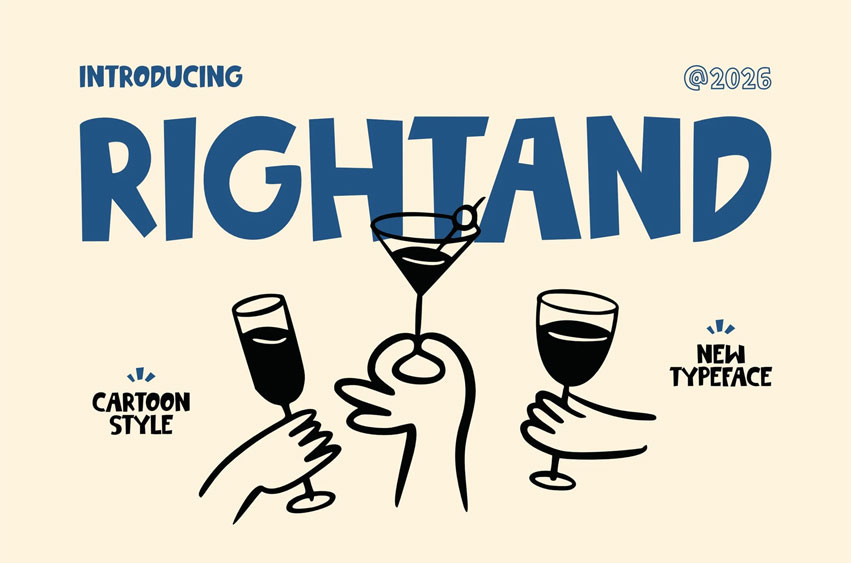
Rightand Font
Rightand Font is a bold all-caps hand-drawn display typeface designed for expressive branding and statement headlines, featuring chunky proportions, rounded terminals, and confident stroke contrast. Its strong uppercase structure delivers instant readability and visual authority, while the playful, handcrafted feel keeps designs warm and approachable. The vibe is bold, friendly, and energetic—perfect for creative brands that want to stand out without feeling rigid.
RIGHTAND is built for designers who need their message to hit fast and stay memorable. It excels in branding, posters, packaging, editorial graphics, merch, and social media, especially for cafés, music scenes, lifestyle brands, and creative studios. Its all-caps format amplifies impact, making it ideal for attention-grabbing headlines, bold promotions, and expressive visual identities.
• All-caps impact: Strong presence for short messages and bold headlines
• Hand-drawn character: Feels human, expressive, and authentic
• Chunky proportions: High readability across print and digital formats
• Rounded terminals: Friendly tone without losing strength
• Retro-playful energy: Perfect for coffee culture, music, and merch